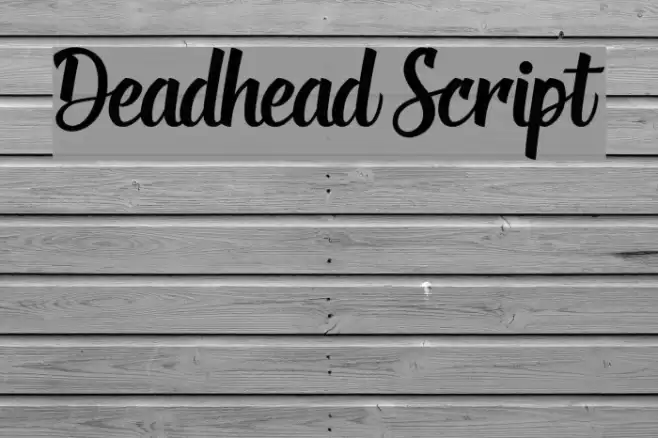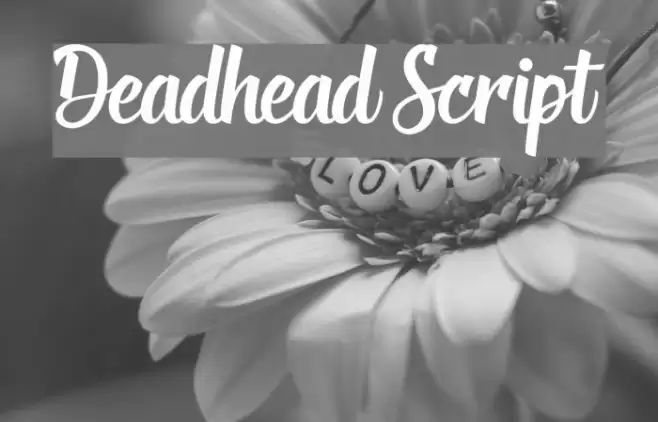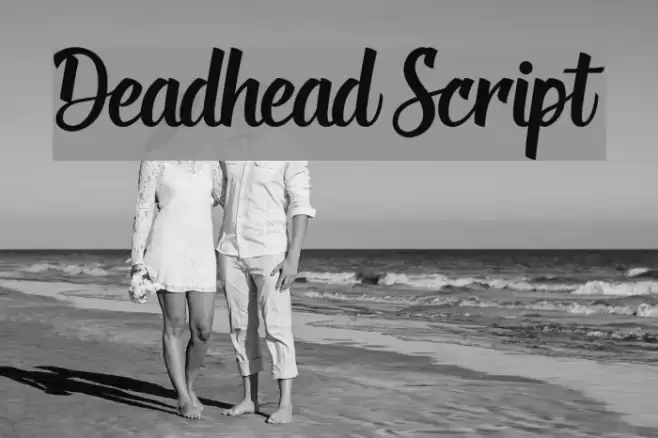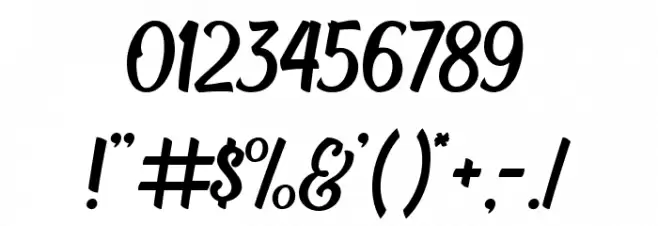
Deadhead Script Font
Deadhead Script Description
This font features a bold and flowing script style, characterized by its elegant and dynamic curves. The uppercase letters are particularly striking, with sweeping lines and a sense of movement that adds a touch of sophistication. The lowercase letters maintain a consistent flow, complementing the uppercase with their rounded forms and smooth connections. Numbers and special characters are designed with the same attention to detail, ensuring a cohesive look across all elements. This font's overall appearance is both stylish and versatile, making it suitable for a variety of design applications.
A bold, flowing script font with elegant curves and dynamic movement from Uncategorized fonts.
- Proposed Projects: Ideal for wedding invitations, branding, logos, and elegant packaging designs.
- Use Case: Logos, Headlines, Invitations